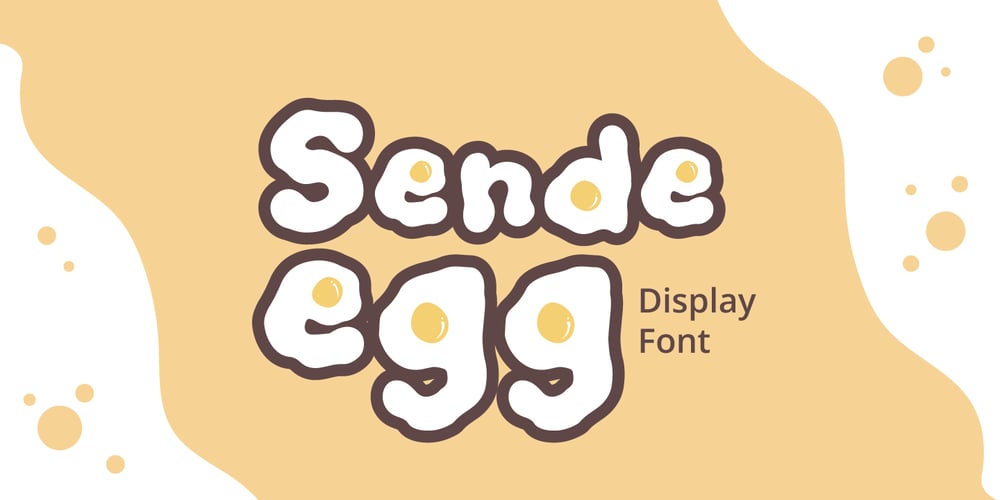
Sende Egg Font Family was designed by Fadli Ramadhan Iskandar and published by Attype Studio. Sende Egg contains 2 styles and family package options. Sende Egg is a display food font inspired by sunny side egg, Fall in love with it and bring your projects to the highest levels!Sende Egg is perfect for food branding, logo, invitation, stationery, social media post, product packaging, merchandise, blog design, game titles, cute style design, Book/Cover Title and more.What’s Included :- Sende Egg Family Font- Ligatures- Multilingual Support (Afrikaans, Albanian, Catalan, Danish, Dutch, English, Estonian, Finnish, French, German, Icelandic, Italian, Norwegian, Portugese, Spanisch, Swedish, Zulu)—Hope you enjoy with our font!Attype Studio